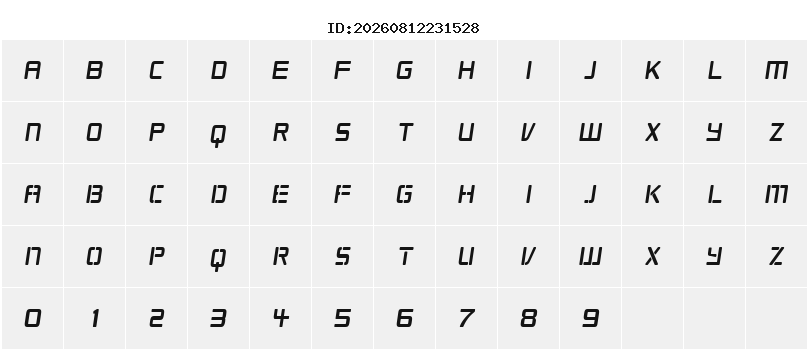
• Font Name: Republikaps Cnd
• Full Font Name: Republikaps Cnd Italic
• PostScript Name: RepublikapsCnd-Italic
• Designer: Apostrophe (')
About Republikaps Cnd.ttf
Republikaps Cnd.ttf is a modern, elegant sans-serif font designed for ultimate readability and visual harmony. Perfect for branding, headlines, web design, and print materials.